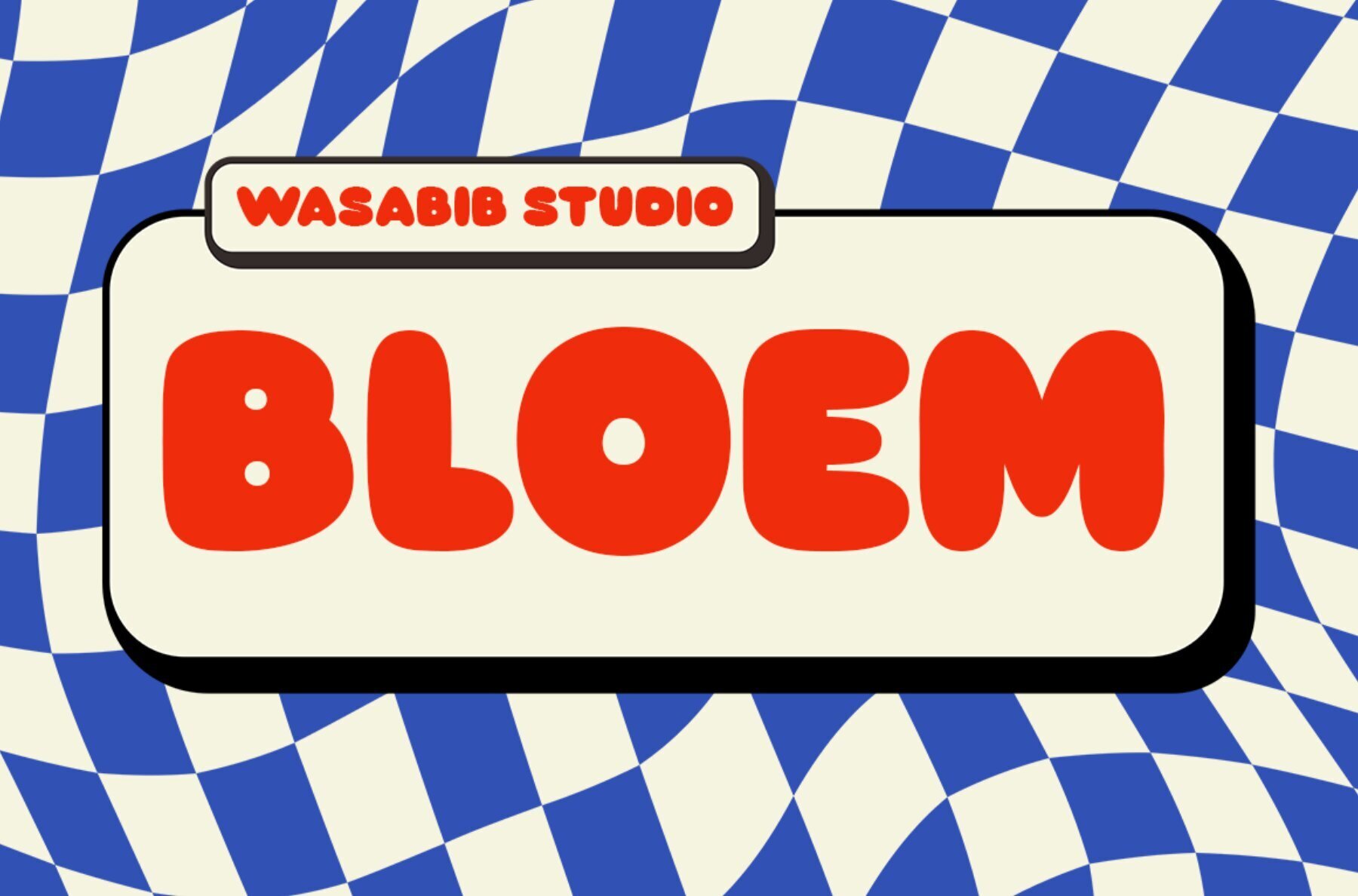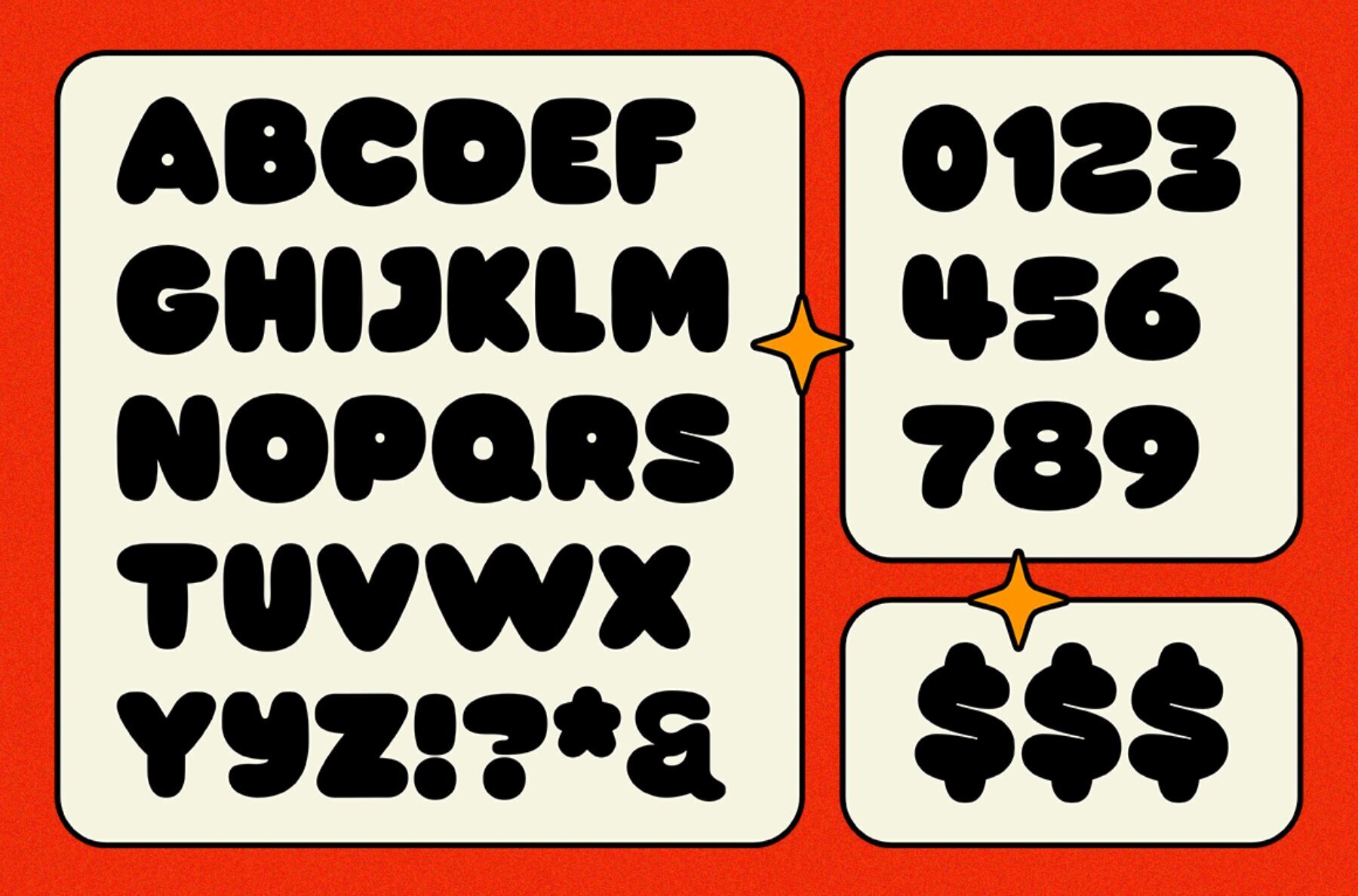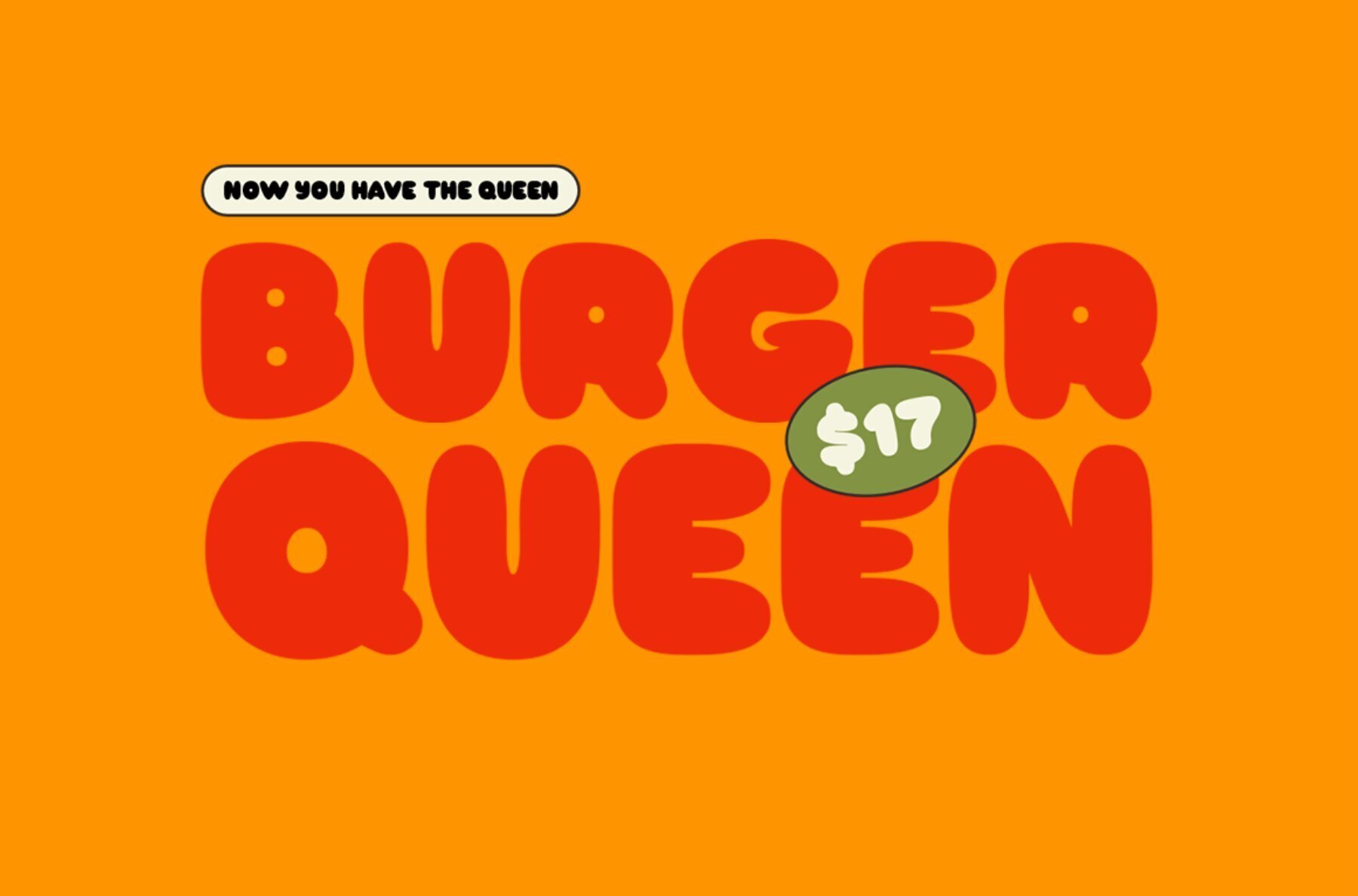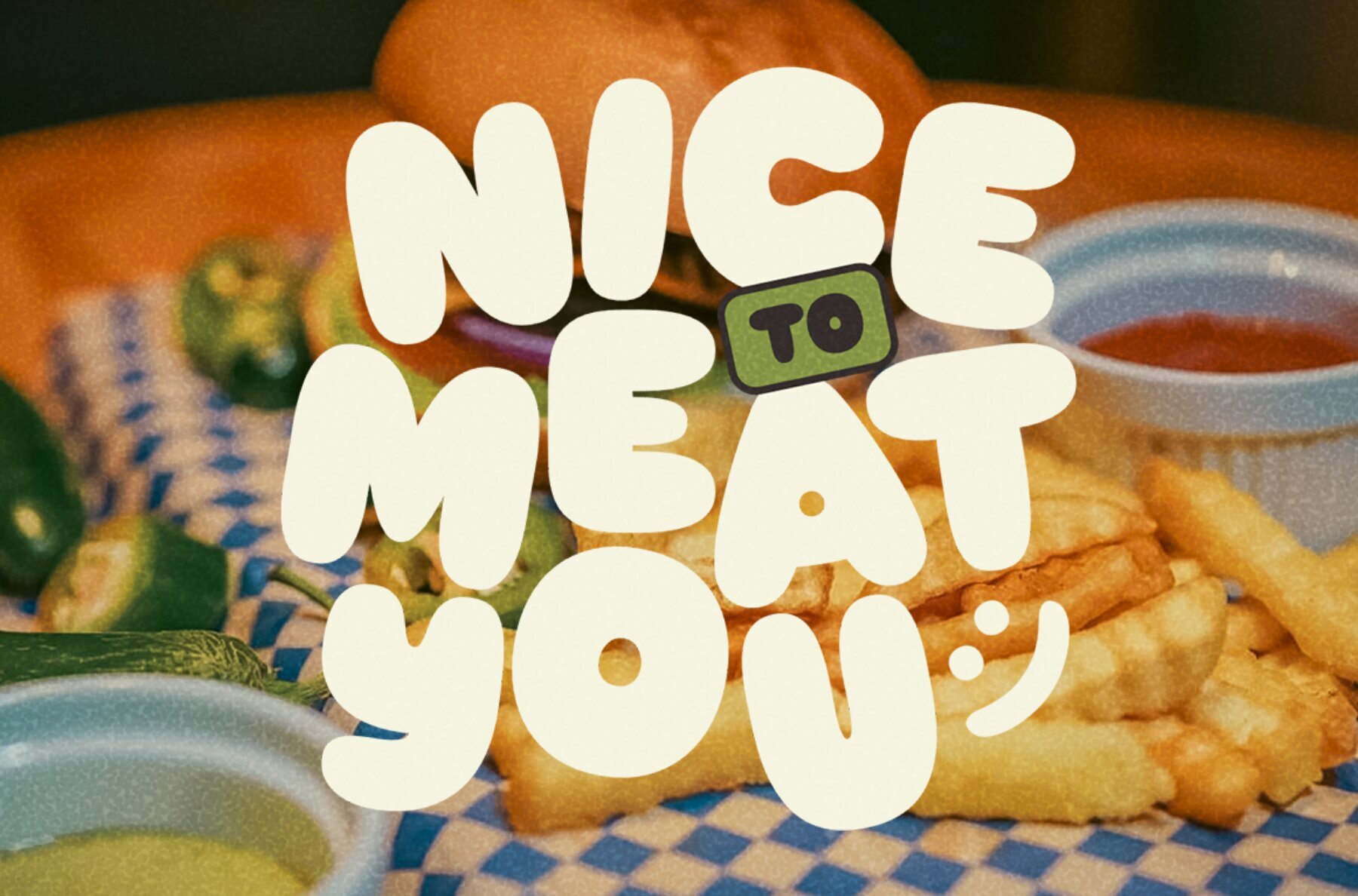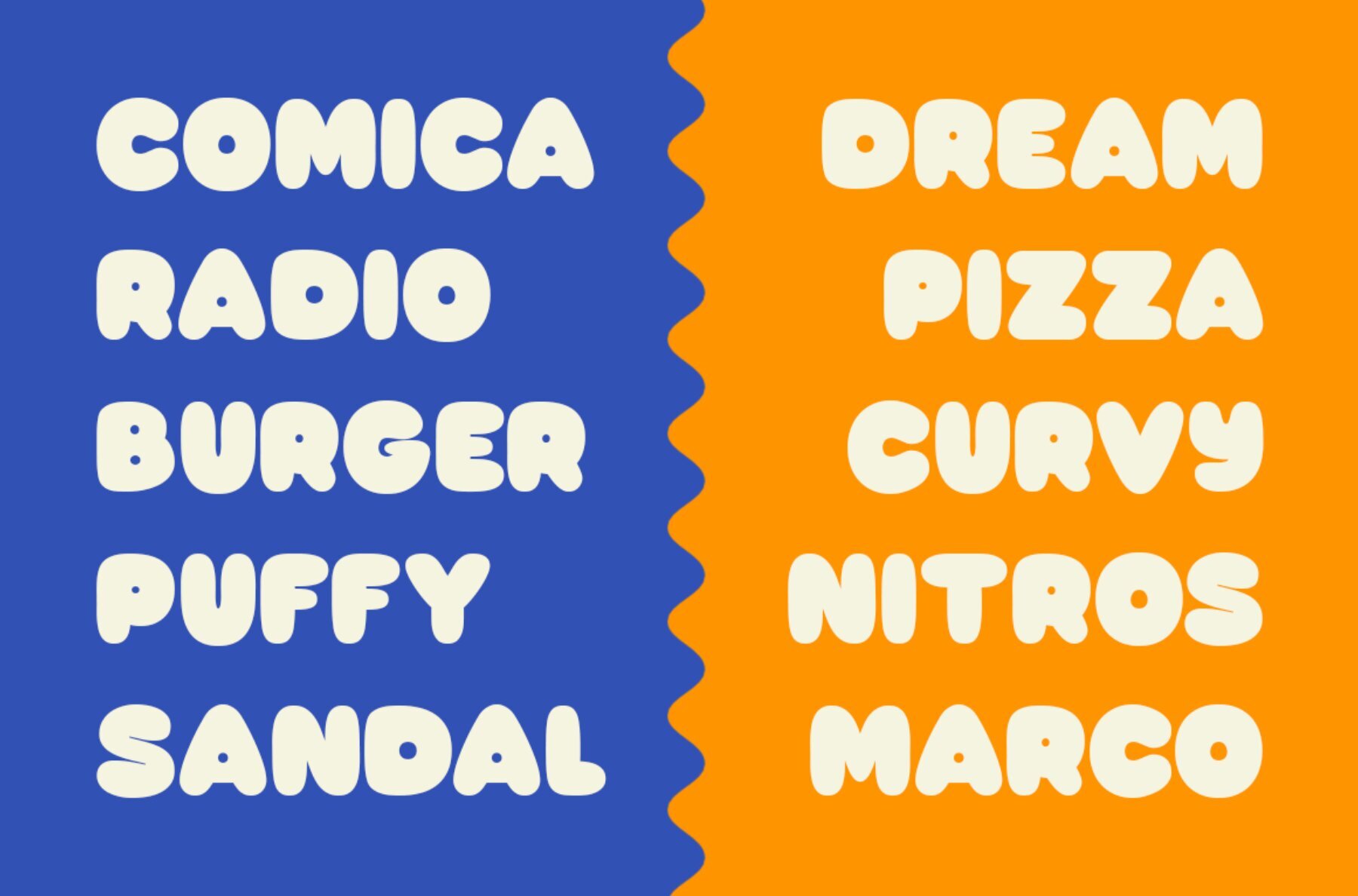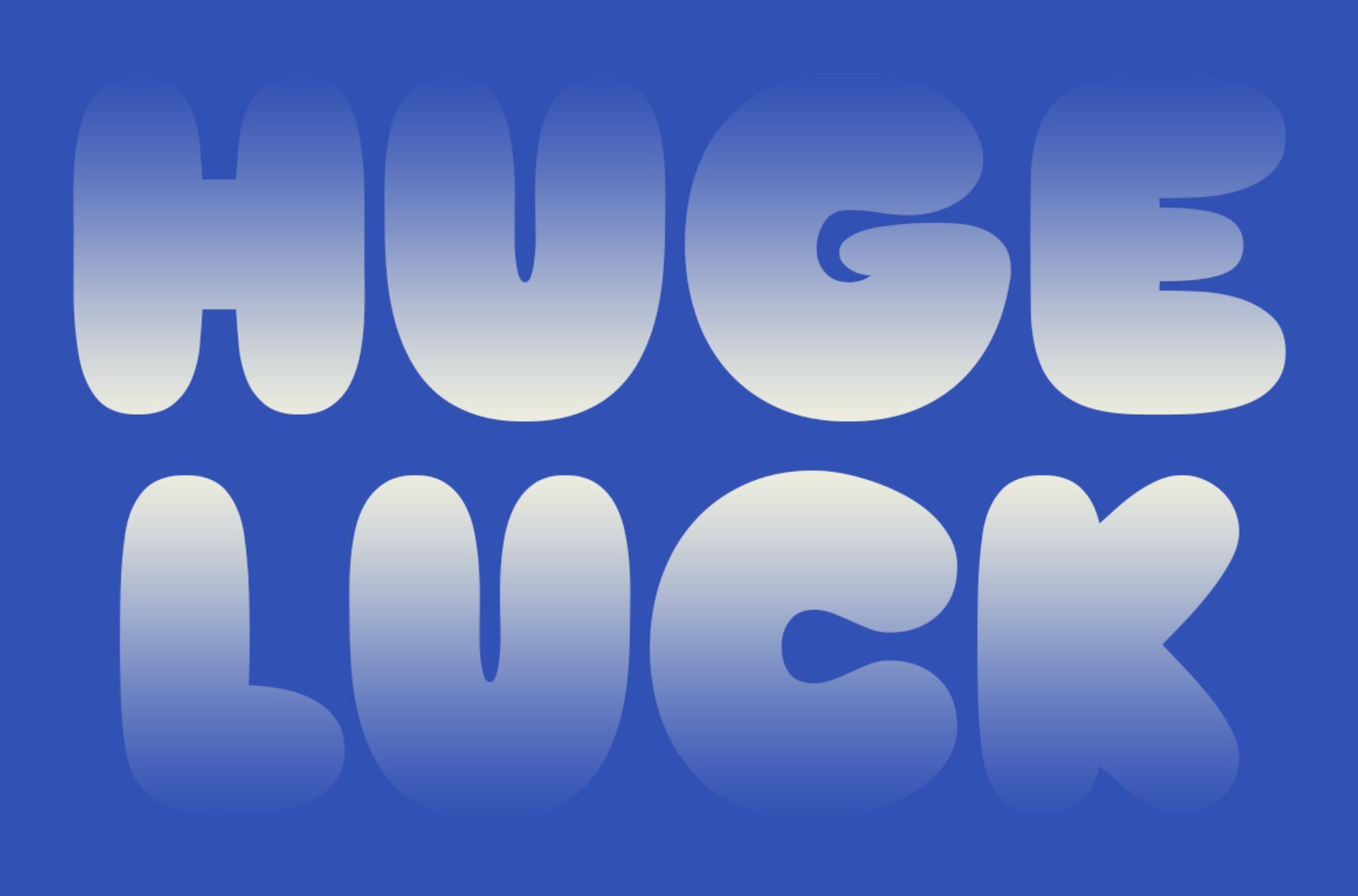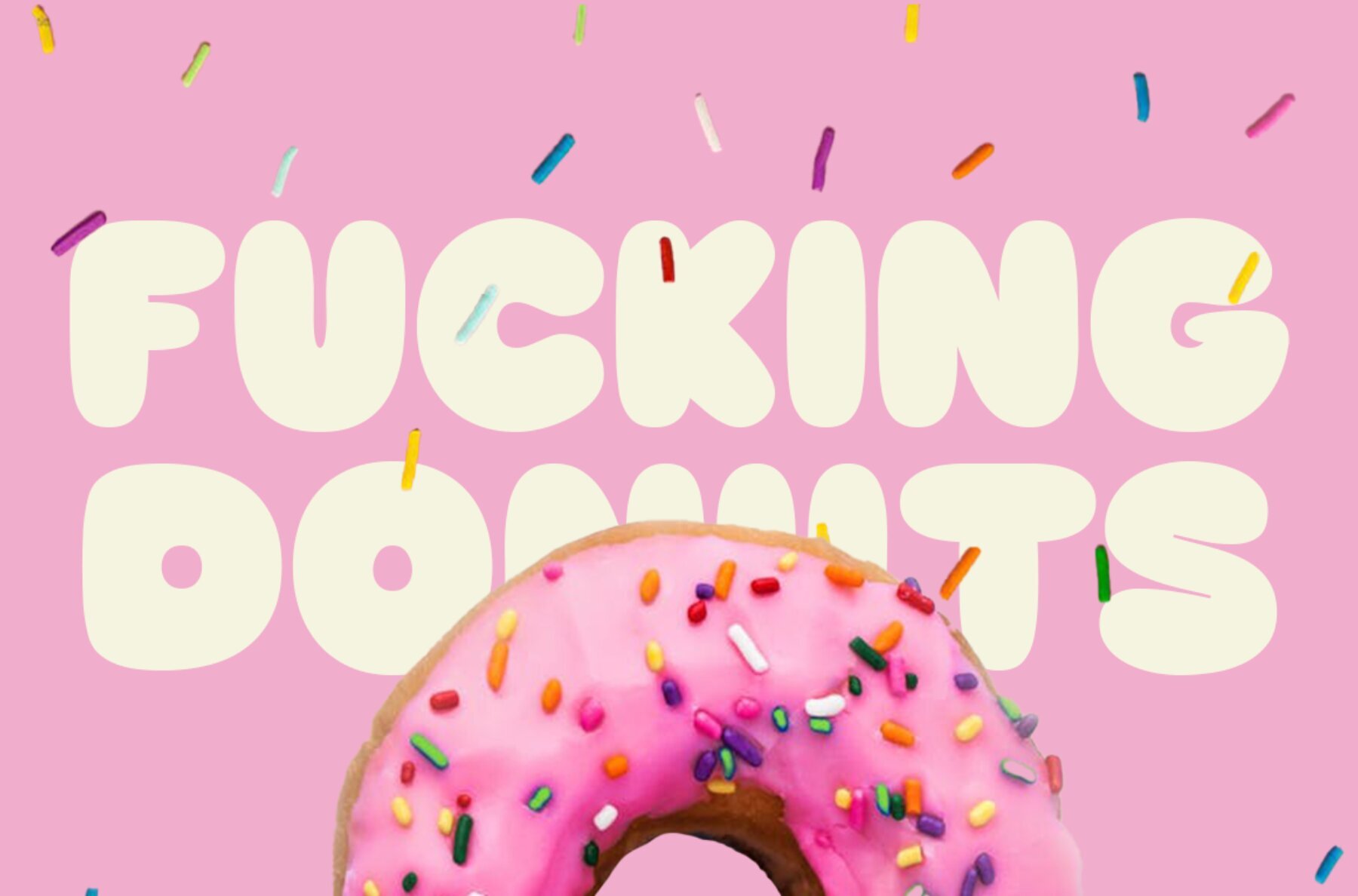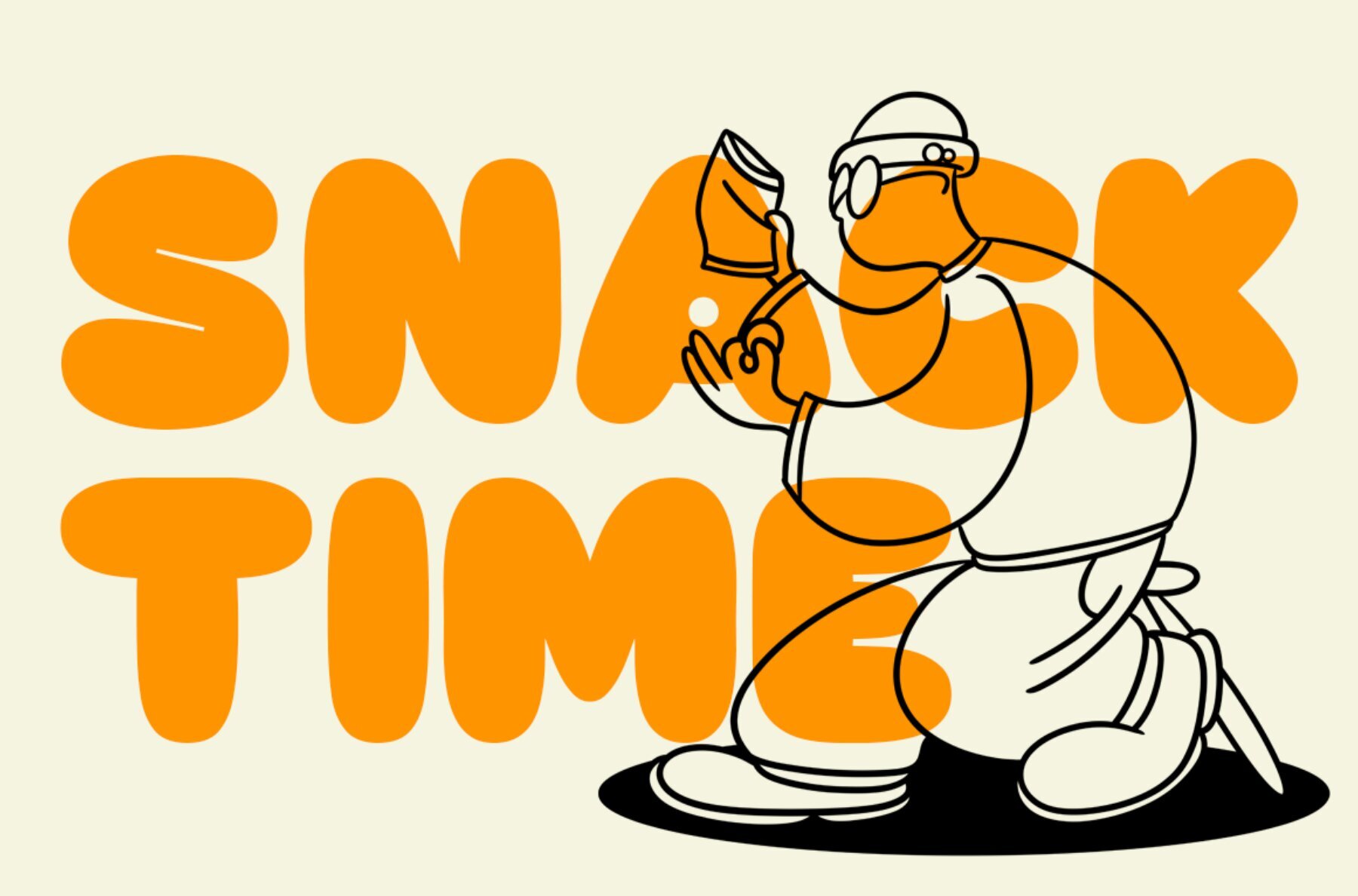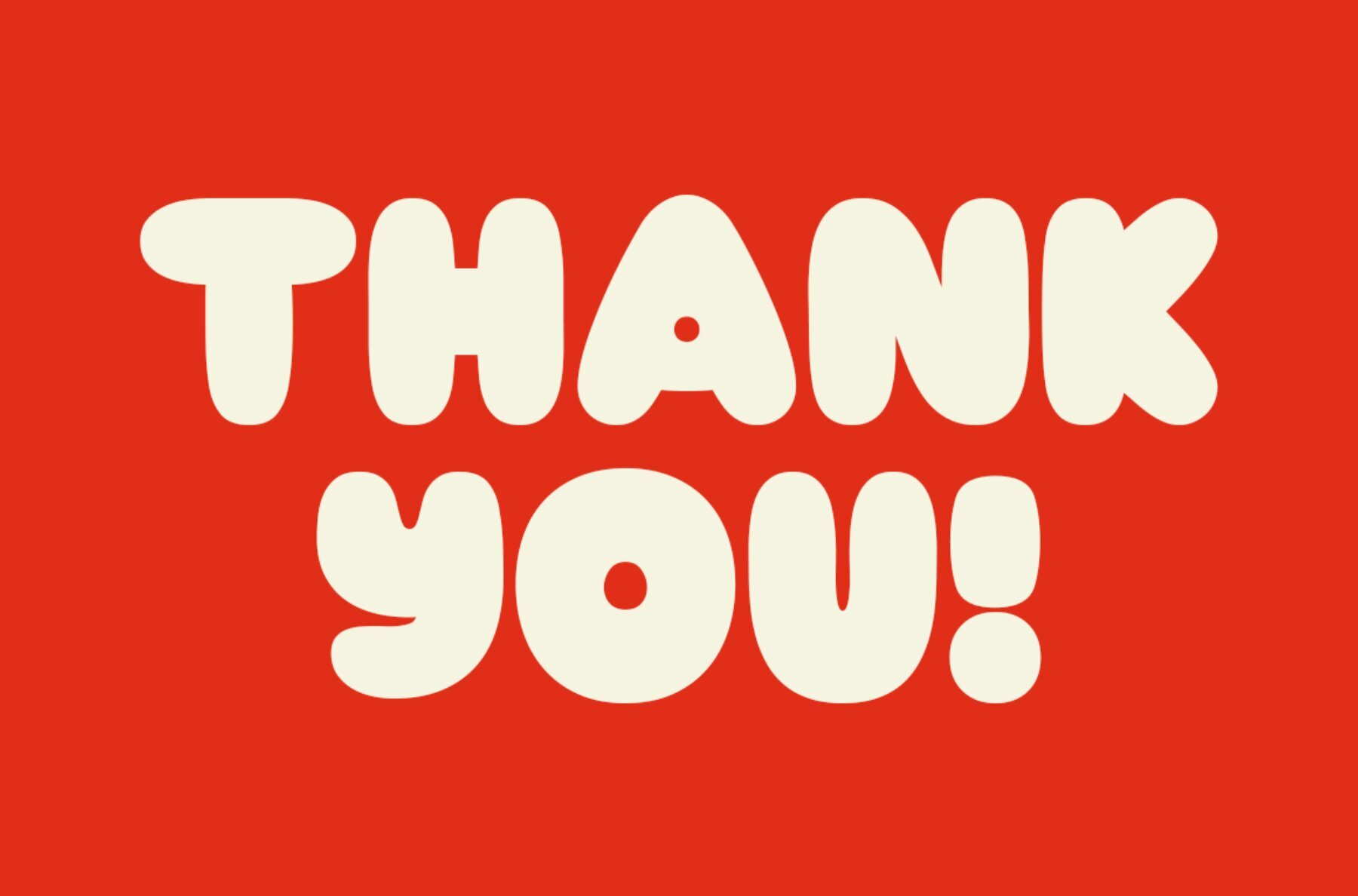
Bloem Font
Ws Bloem Regular
WS Bloem is a font that features bold, substantial letterforms with rounded edges. This font style has a charming, playful personality that adds character and warmth to a variety of design applications. The thick rounded display font style is suitable for design projects that require a touch of personality and warmth. It can be used in creative designs, social media graphics, packaging, and other marketing materials, injecting a playful and inviting character that can engage viewers and create a memorable impression.